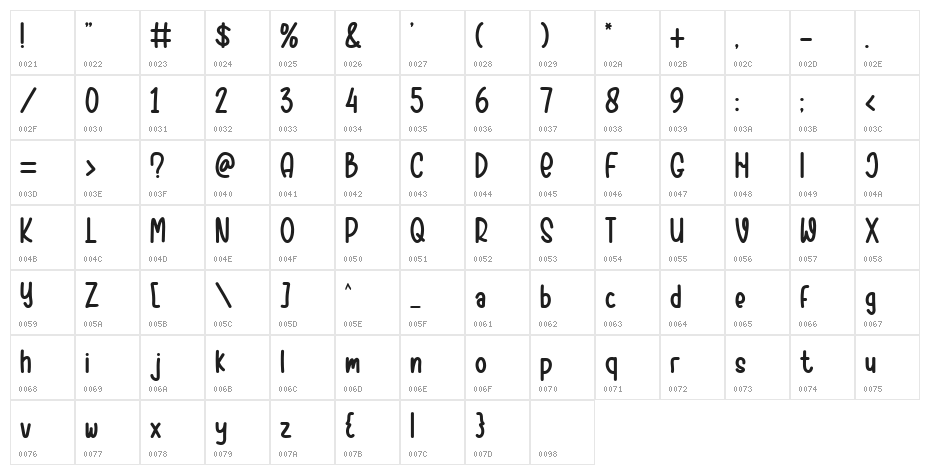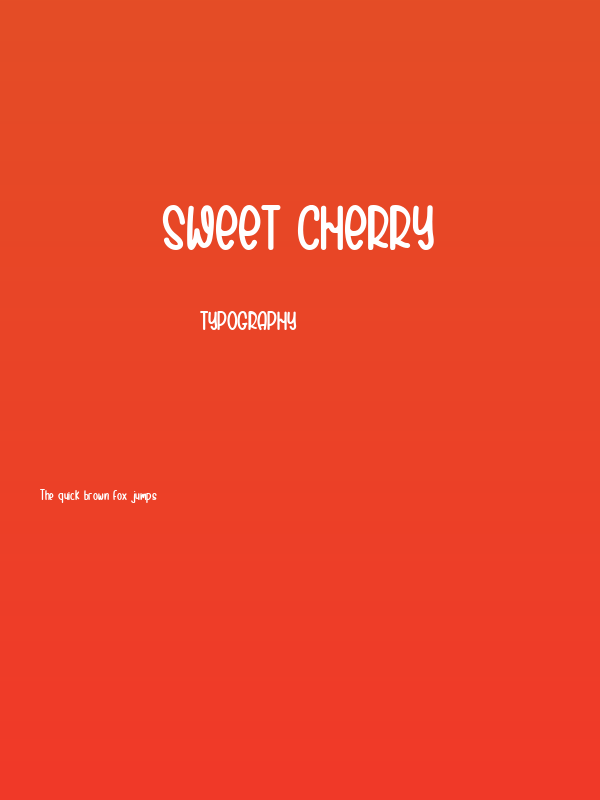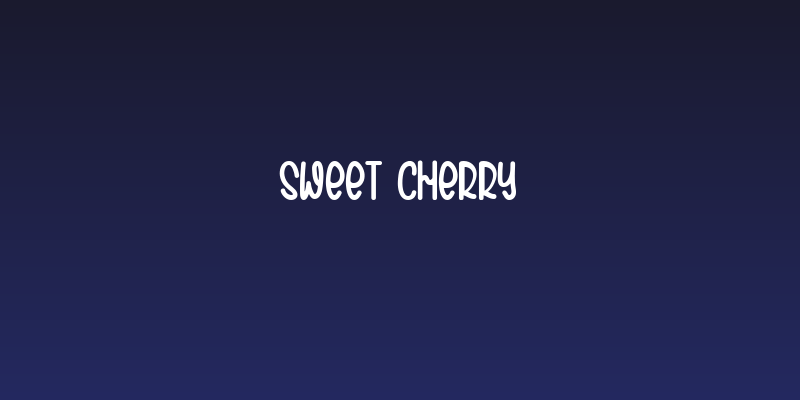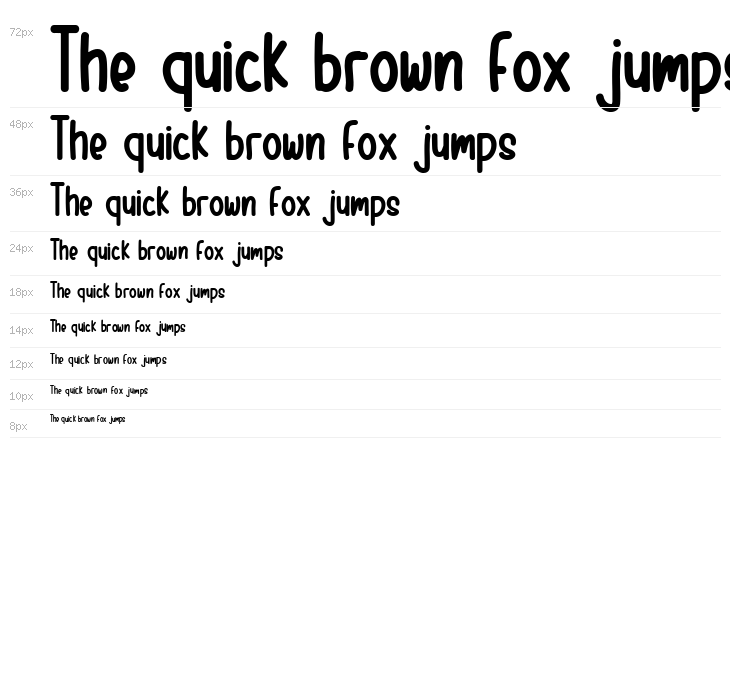
Sweet Cherry Font
Sweet Cherry Description
This playful and whimsical font features rounded, smooth edges and a casual handwritten style. The letters are bold and slightly irregular, giving them a friendly and approachable appearance. The uppercase and lowercase characters maintain a consistent style, with a slight slant that adds to the informal feel. Numbers and special characters are designed to match the overall aesthetic, ensuring a cohesive look across all text. The font's design is reminiscent of a child's handwriting, making it ideal for projects that require a touch of fun and creativity.
| Proposed Projects | Ideal for children's books, playful branding, greeting cards, and informal invitations. |